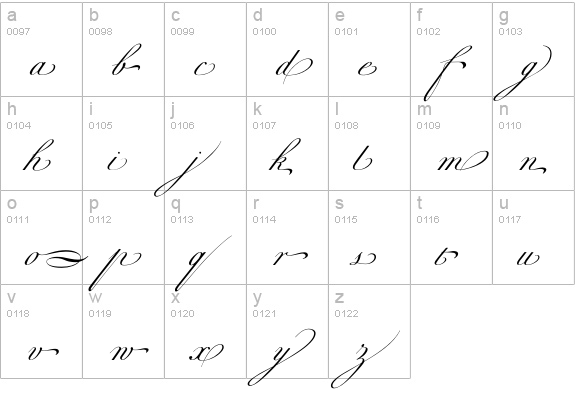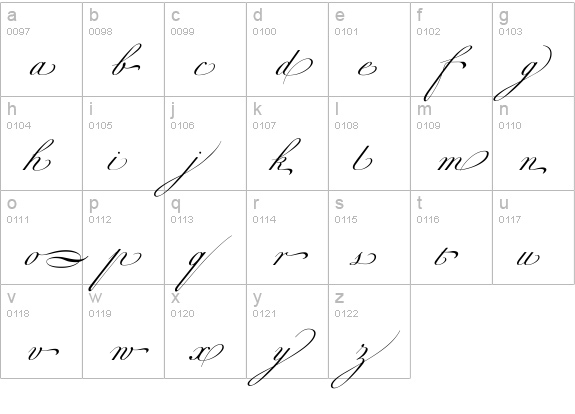
PFRoyalscript Endings Font Details
PFRoyalscript Endings font is a beautifully designed typeface that exudes elegance and sophistication. Its intricate details and graceful curves make it perfect for adding a touch of luxury to your projects. This font features unique endings that give your text a regal and majestic appearance, making it ideal for invitations, branding, and other upscale designs. What sets PFRoyalscript Endings font apart is that it is available for free download at FontsMarket.com. This means you can easily access this exquisite font without any cost, allowing you to enhance your creations with a touch of royal flair without breaking the bank. Don't miss out on the opportunity to elevate your designs with PFRoyalscript Endings font today!